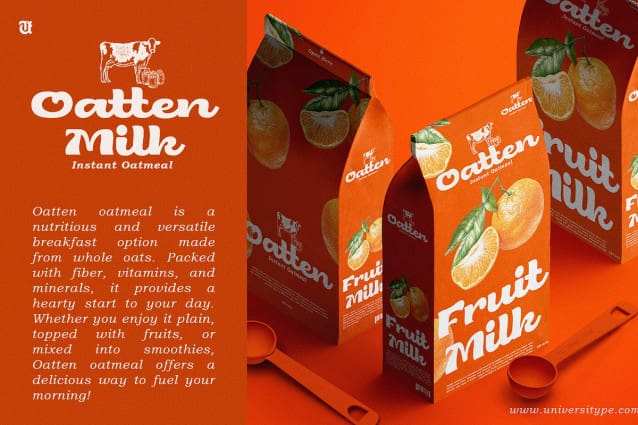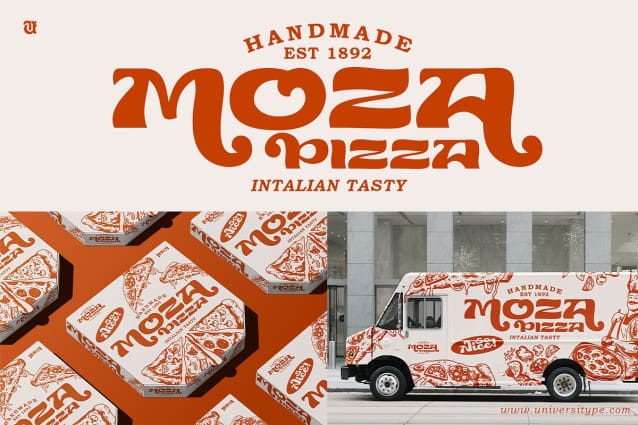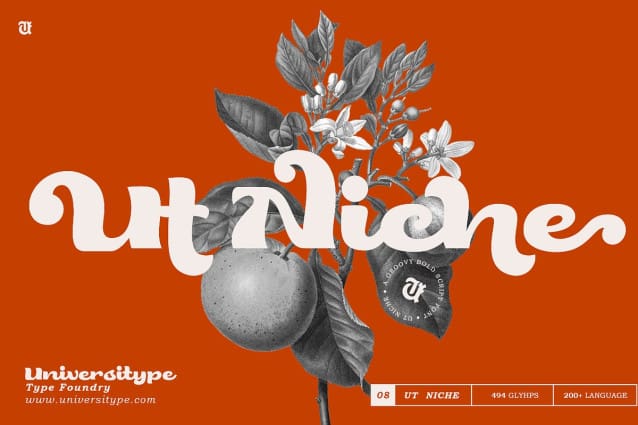
UT Niche Font
UT Niche Font, where vintage charm meets modern elegance in one bold, playful script. Inspired by mid-century design elements, UT Niche brings a sense of retro nostalgia to any project, effortlessly blending swirling curves and lively flourishes with contemporary finesse.
Whether you’re designing a logo, crafting a captivating advertisement, or looking to elevate a brand’s identity, this typeface invites you to think outside the box and have fun while doing it.
With 501 glyphs, including an array of stylish alternates and ligatures, UT Niche offers endless creative possibilities. Its bold strokes and swashes infuse personality into each character, making every word stand out with warmth and authenticity.
The soft, rounded edges are reminiscent of vintage greeting cards or advertisements from the golden age of print, yet the clean, modern lines give it the versatility needed for today’s digital age.